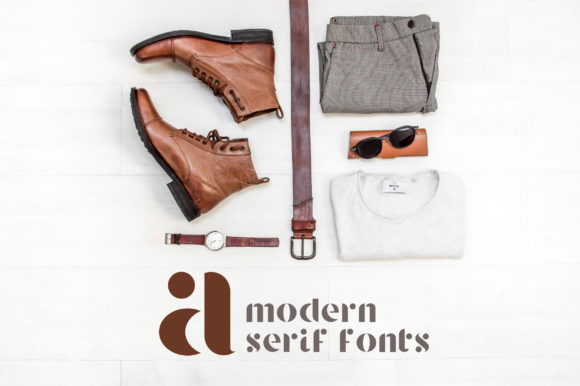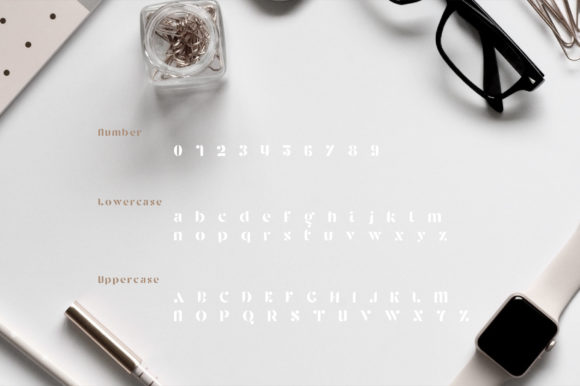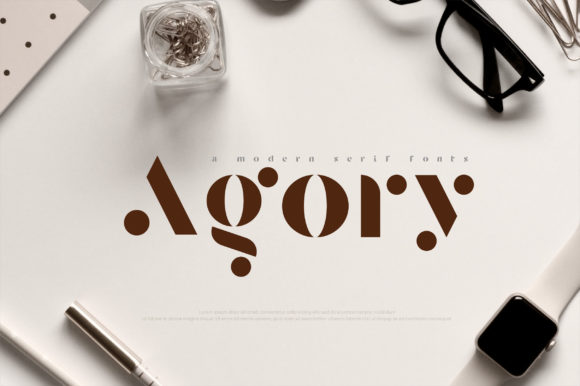
Unleash Your Creativity with Agory Font: A Bold Display Font for the Modern Designer
Are you tired of using the same old fonts for your creative projects? Look no further than Agory Font, an incredibly unique and bold display font that’s sure to take your designs to the next level. Masterfully designed to become a true favorite, Agory Font has the potential to bring each of your creative ideas to the highest level, making it a must-have for designers and crafters alike.
The Power of Bold Typography
In the world of design, typography plays a crucial role in communicating your message and capturing the attention of your audience. A bold display font like Agory Font can be a game-changer, adding a touch of drama and sophistication to your designs. Whether you’re working on a logo, a poster, or a website, Agory Font is the perfect choice for making a statement.
What Sets Agory Font Apart
So, what makes Agory Font so special? Here are just a few features that set it apart from other fonts:
• Unique Design: Agory Font boasts a one-of-a-kind design that’s sure to turn heads. Its bold, eye-catching letterforms are perfect for making a statement.
• High Versatility: Agory Font is incredibly versatile, making it suitable for a wide range of design projects, from logos and posters to websites and social media graphics.
• Easy to Read: Despite its bold design, Agory Font is surprisingly easy to read, making it perfect for use in both digital and print applications.
• Customizable: Agory Font comes with a range of customization options, allowing you to tailor it to your specific design needs.
Why Designers and Crafters Love Agory Font
Agory Font has quickly become a favorite among designers and crafters, and it’s easy to see why. Here are just a few reasons why:
• Time-Saving: With Agory Font, you can create stunning designs in a fraction of the time it would take with other fonts.
• Professional Results: Agory Font is designed to produce professional-looking results, making it perfect for designers who need to deliver high-quality work.
• Inspiration: Agory Font is sure to inspire your creativity, helping you to come up with fresh ideas and new perspectives.
How to Use Agory Font in Your Designs
Using Agory Font in your designs is easy. Here are a few tips to get you started:
• Pair it with Other Fonts: Agory Font pairs well with a range of other fonts, making it easy to create stunning contrast and visual interest.
• Experiment with Colors: Agory Font looks great in a range of colors, so don’t be afraid to experiment and find the perfect hue for your design.
• Play with Size: Agory Font is designed to make a statement, so don’t be afraid to use it in large sizes to really drive your message home.
Agory Font is an incredibly unique and bold display font that’s sure to take your designs to the next level. With its masterful design, high versatility, and ease of use, it’s no wonder that Agory Font has become a favorite among designers and crafters. Whether you’re working on a logo, a poster, or a website, Agory Font is the perfect choice for making a statement. So why wait? Download Agory Font today and unleash your creativity!